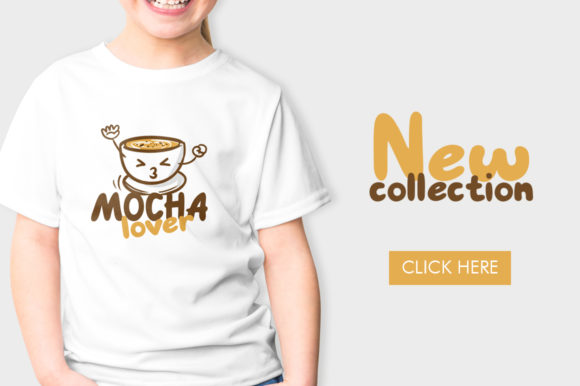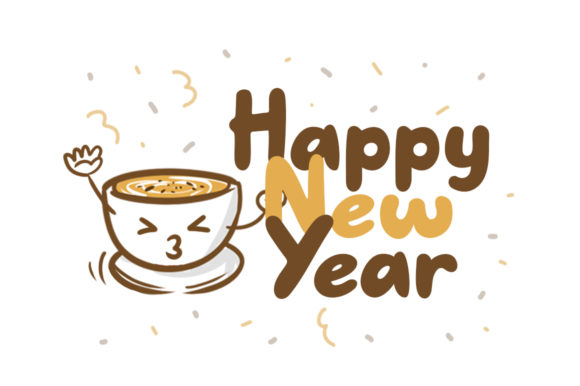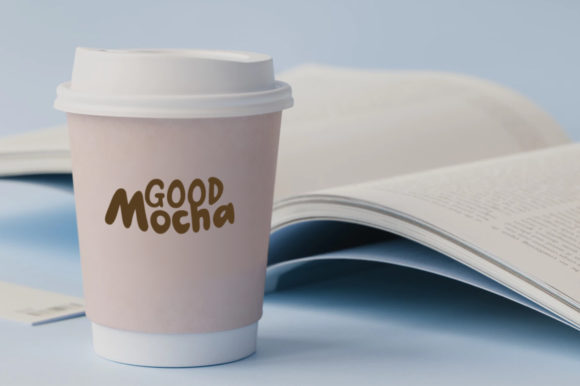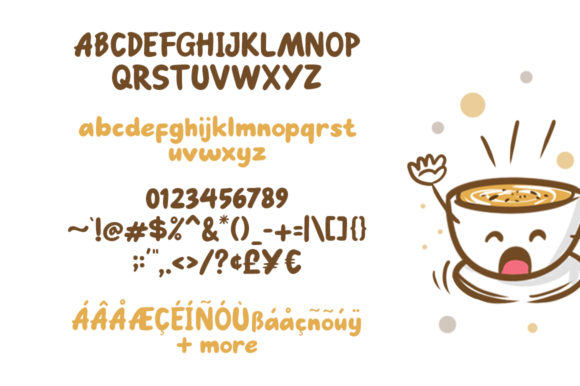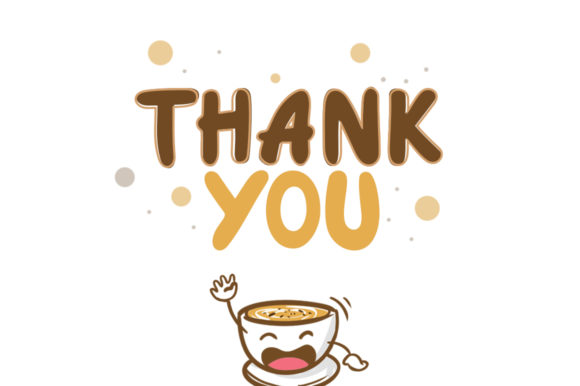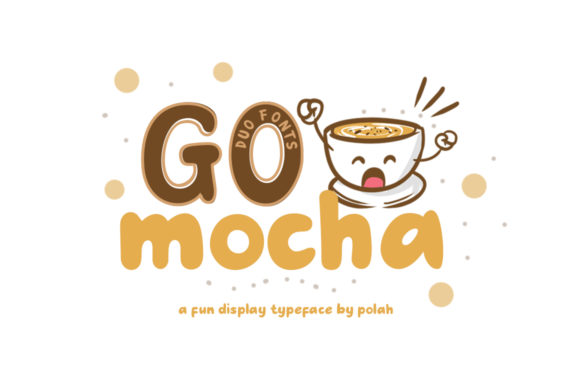
Introducing Go Mocha Font: A Fun Display Typeface for Creative Projects
Are you a designer or crafter looking for a unique and versatile font to elevate your creative projects? Look no further than the Go Mocha Font! This fun display typeface is perfect for making a statement with its awesome characters in 2 different styles: regular and outline.
What is Go Mocha Font?
The Go Mocha Font is a modern display typeface designed to add a touch of personality to your designs. Its regular and outline styles offer flexibility and creativity, making it suitable for a wide range of applications, from name cards and posters to logos, magazines, covers, and even large-scale artwork.
Key Features of Go Mocha Font
- Two Styles: The Go Mocha Font comes in two distinct styles: regular and outline. This allows you to experiment with different looks and choose the one that best fits your project’s tone and aesthetic.
- Awesome Characters: The font features a set of awesome characters that are sure to grab attention. Each character is carefully crafted to ensure that your text stands out, whether you’re designing a logo, poster, or any other visual material.
- High Versatility: The Go Mocha Font’s versatility makes it an excellent choice for various projects. Use it for creating eye-catching posters, professional name cards, unique logos, or engaging magazine covers.
Whether you’re a professional designer or a crafter, the Go Mocha Font is an excellent addition to your toolkit. Its fun and modern design makes it perfect for projects that require a creative and fresh look. Here are some ideas on how to use the Go Mocha Font:
- Name Cards: Create memorable name cards with the Go Mocha Font’s regular style for a bold look or the outline style for a more subtle approach.
- Posters: Design eye-catching posters that stand out with the Go Mocha Font. Its characters are large and clear, making your posters readable from a distance.
- Logos: Give your brand a unique identity with a custom logo designed using the Go Mocha Font. The font’s distinctive style will help your brand stand out.
- Magazines and Covers: Use the Go Mocha Font to create engaging magazine covers or article headers. Its modern look will add a touch of sophistication to your publication.
- Large-Scale Artwork: For large-scale artwork, the Go Mocha Font’s clarity and impact make it an excellent choice. Use it to create visually stunning pieces that capture attention.
Why Choose Go Mocha Font?
With so many fonts available, why choose the Go Mocha Font? Here are a few reasons:
- Uniqueness: The Go Mocha Font offers a unique style that sets it apart from more traditional typefaces. Its fun and modern design ensure that your projects stand out.
- Flexibility: The two styles (regular and outline) provide flexibility, allowing you to experiment with different looks without needing multiple fonts.
- Readability: Despite its creative design, the Go Mocha Font remains highly readable, making it suitable for a wide range of applications.
The Go Mocha Font is a versatile and fun display typeface that can elevate your creative projects. With its two styles, awesome characters, and high versatility, it’s perfect for designers and crafters looking to add a modern touch to their work. Whether you’re creating name cards, posters, logos, or large-scale artwork, the Go Mocha Font is an excellent choice. So, why wait? Download the Go Mocha Font today and bring a fresh, creative look to your designs!